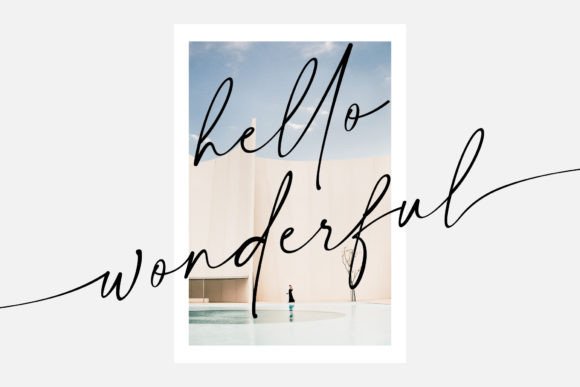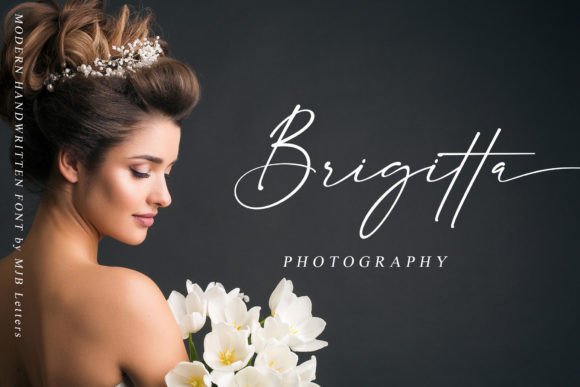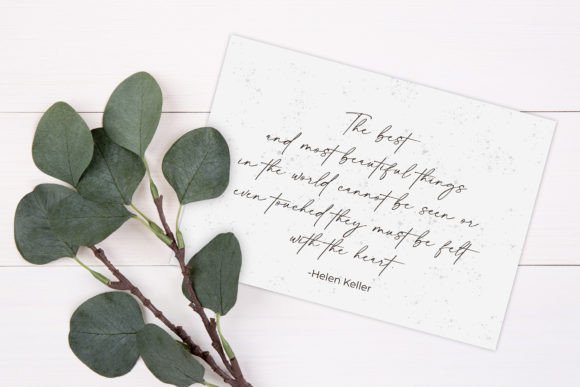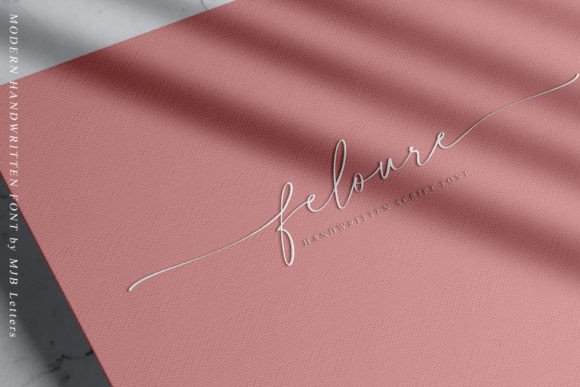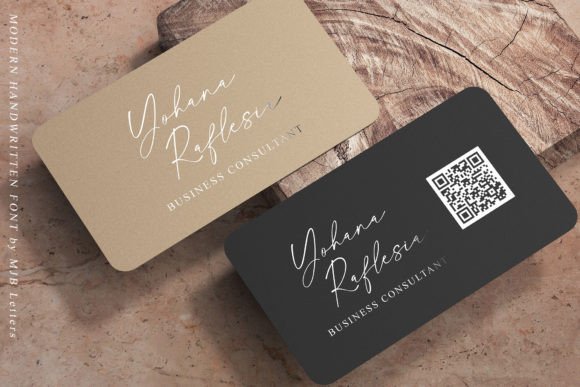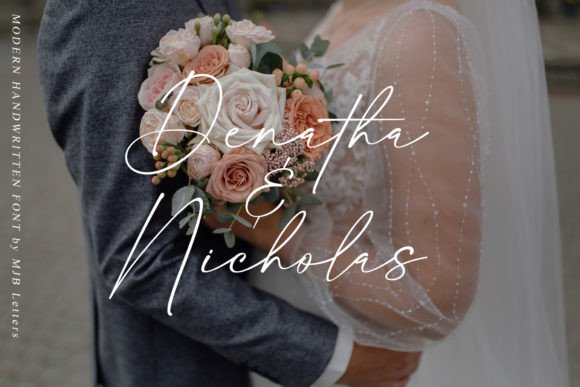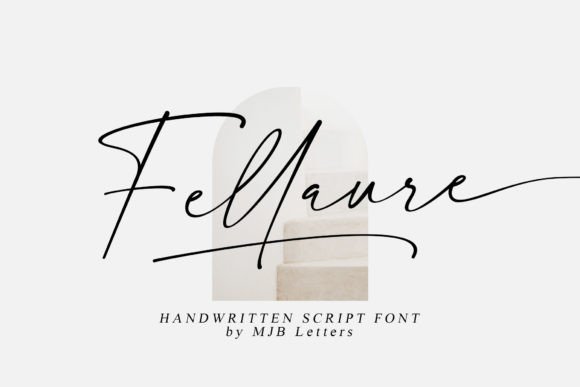
Fellaure Font: Elevate Your Designs with Elegance and Sophistication
In the world of typography, a well-crafted font can make all the difference in elevating your designs to new heights. Introducing Fellaure, a stunning handwritten font that is sure to capture your heart. With its perfect blend of classic calligraphic influences and modern flair, Fellaure is the ultimate choice for designers and crafters looking to add a touch of elegance and sophistication to their projects.
The Story Behind Fellaure
Fellaure is more than just a font – it’s a masterpiece that has been carefully crafted to bring a sense of refinement and luxury to your designs. Its exquisite handwritten style is reminiscent of traditional calligraphy, yet it feels fresh and contemporary, making it perfect for a wide range of applications. Whether you’re working on a branding project, creating wedding invitations, or designing packaging, Fellaure is the perfect choice to make your designs stand out.
Key Features of Fellaure
- Exquisite Handwritten Style: Fellaure boasts a beautiful, handwritten style that is sure to add a touch of elegance to your designs.
- Classy Calligraphic Influences: With its roots in traditional calligraphy, Fellaure maintains a sense of sophistication and refinement.
- Contemporary and Fresh: Despite its classic influences, Fellaure feels modern and fresh, making it perfect for designers looking for a unique and stylish font.
- Versatile: Fellaure is suitable for a wide range of applications, from branding and advertising to packaging and wedding invitations.
Why Choose Fellaure?
With so many fonts available, why choose Fellaure? Here are just a few reasons why Fellaure stands out from the crowd:
- Unique and Distinctive: Fellaure’s exquisite handwritten style ensures that your designs will stand out from the crowd.
- Easy to Read: Despite its elegant style, Fellaure is highly legible, making it perfect for body text and headlines.
- Highly Versatile: Fellaure can be used for both digital and print applications, making it a great addition to any designer’s toolkit.
How to Use Fellaure in Your Designs
Using Fellaure in your designs is easy. Here are a few tips to get you started:
- Pair with Other Fonts: Fellaure pairs beautifully with other fonts, making it easy to create stunning typographic combinations.
- Experiment with Sizes and Colors: Don’t be afraid to experiment with different sizes and colors to add depth and interest to your designs.
- Use for Headlines and Body Text: Fellaure is highly legible, making it perfect for both headlines and body text.
In conclusion, Fellaure is a truly exquisite handwritten font that is sure to elevate your designs to new heights. With its perfect blend of classic calligraphic influences and modern flair, Fellaure is the ultimate choice for designers and crafters looking to add a touch of elegance and sophistication to their projects. So why wait? Fall in love with Fellaure and bring your designs to the highest levels!